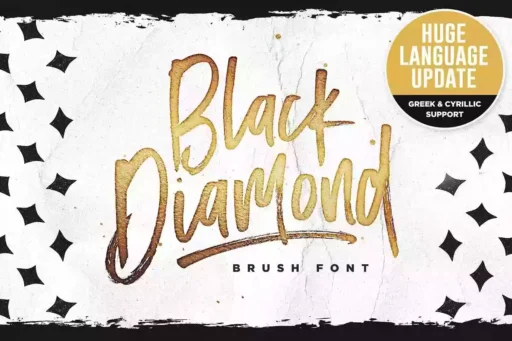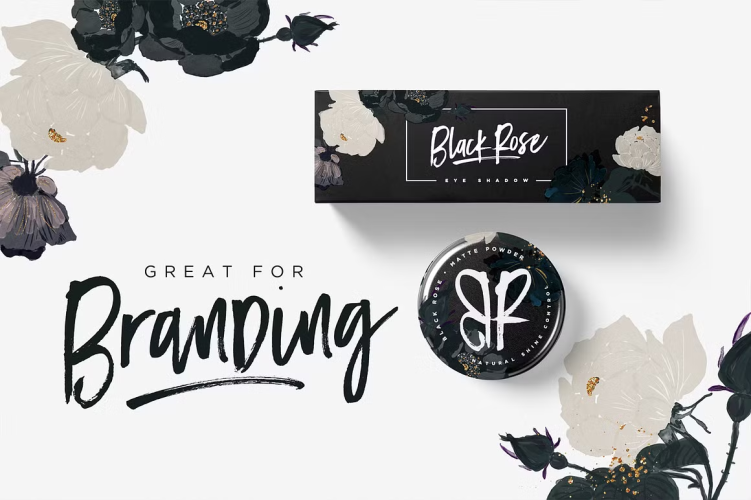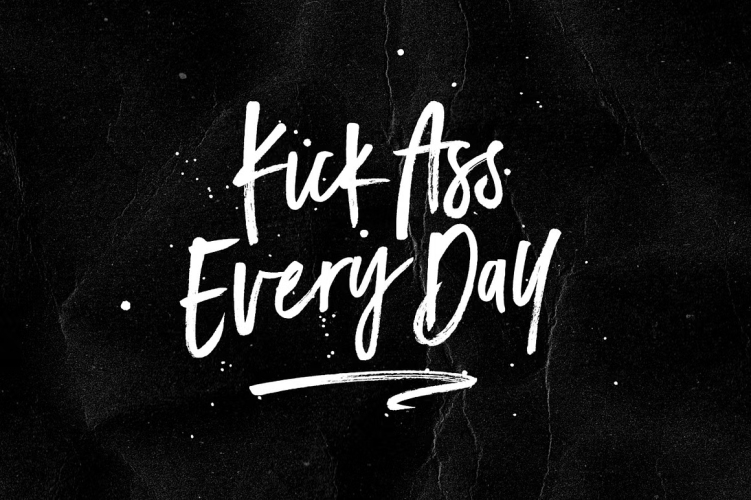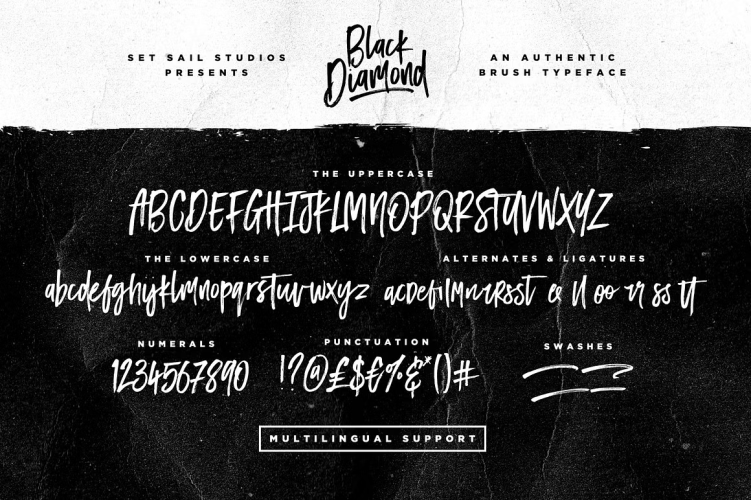
Black Diamond Font
Black Diamond is not an ordinary brush font. It has a raw, edgy, and bold feel, which exudes attitude. The font is created with keen attention to quick strokes and dry textures, resulting in a loud, proud, and carefree message. It is perfect for logos, handwritten quotes, product packaging, merchandise, social media, and greeting cards.
The font file of Black Diamond contains a complete set of lower and uppercase letters, a wide range of punctuation, numerals, and multilingual support. It also features several ligatures and stylistic alternates for those who use opentype-capable software (such as Photoshop or Illustrator). Additionally, there are bonus extras included, such as four different swashes accessible by typing out any of the square-bracket characters { } [ ], and paint splatters produced by pressing the arrow up (^) key.
Black Diamond is a meticulously crafted typeface that creates a three-dimensional impression through quick strokes. Its human touch makes it loud and clear, which resonates with individuals who want to make a statement.
It is perfect for any project – from logos to handwritten quotes, product packaging to merchandise, Instagram posts to greeting cards. It provides the ultimate creative space to express your brand’s unique voice. Be it a rebellious or carefree ambiance, this font can reach any goal with its incomparable air and charm. This font lets you step out confidently and ensure your message is heard clearly. Its fearless spirit and brazen style give you the influence to achieve your goals.
Black Diamond Font is a Brush Fonts font that brings a professional and versatile look to your projects. Black Diamond is not an ordinary brush font.